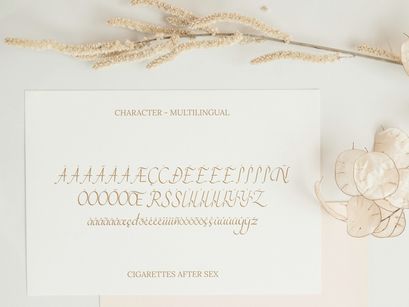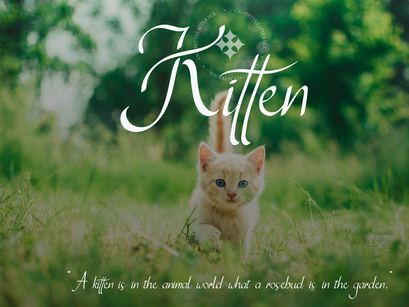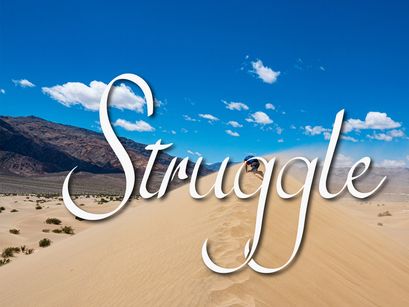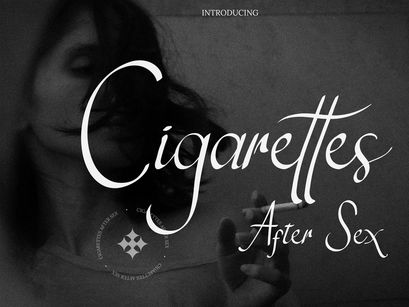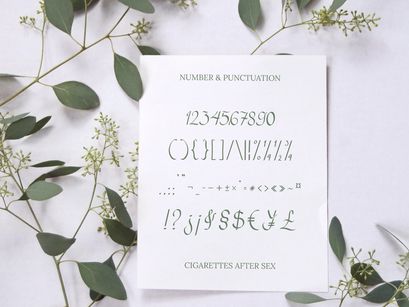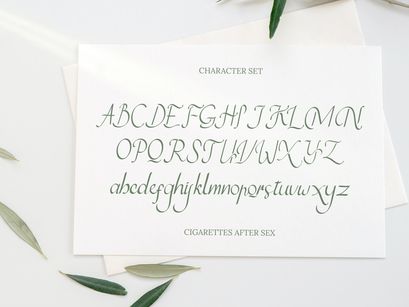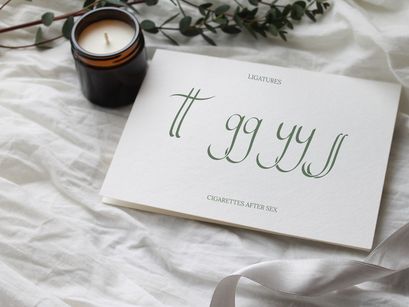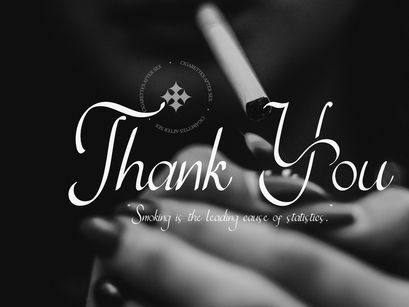
Cigarettes Script Font
This font is perfect for all your project like the wedding invitation, greeting cards, branding materials, business cards, quotes, posters, insignia, badge, greeting cards, vintage logo, or you can use this font for various logo project (logotype) and more! The following characters are ideal to make an attractive message, mix and match Blacksmith with a bunch of alternative characters to fit your project